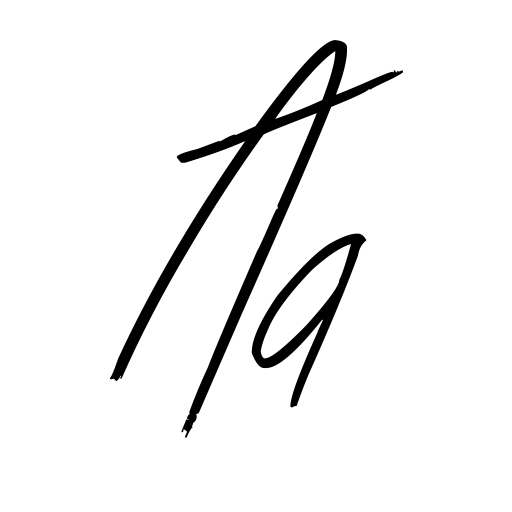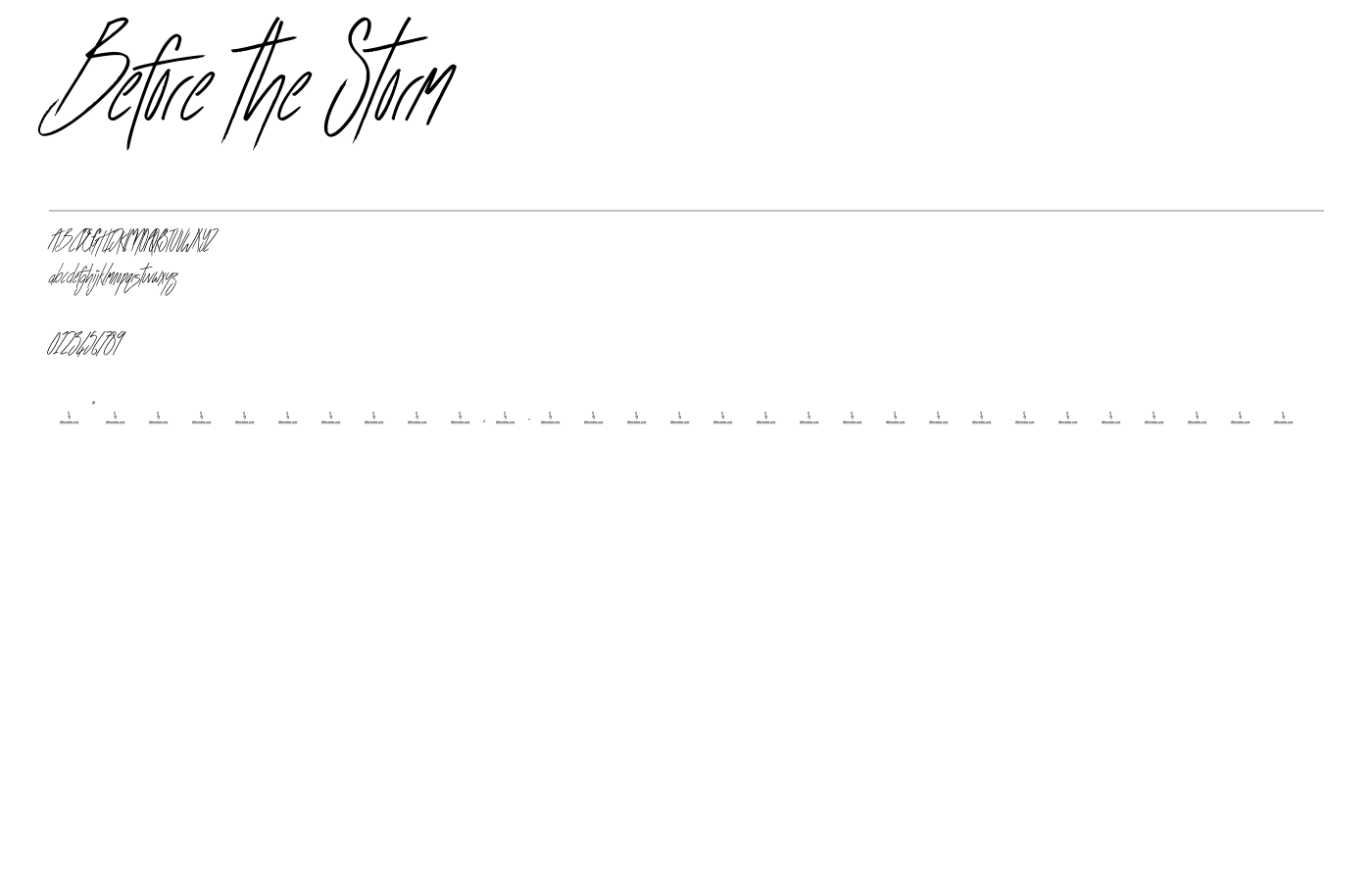
Before the Storm is a slender, handwritten script font featuring tall, narrow letterforms with an elegant, slightly chaotic flow. Its thin strokes and delicate curves give it a refined yet energetic personality, making it ideal for creative branding, artistic projects, and expressive headlines that seek a personal, dynamic touch. This font works best in contexts where a unique, sophisticated, and emotionally engaging style is desired.
Before the Storm Font
About Before the Storm Font